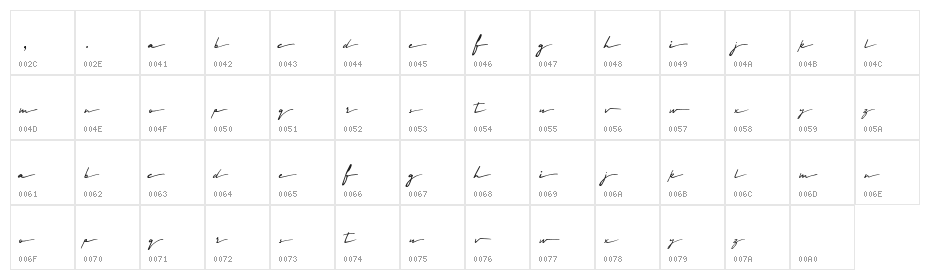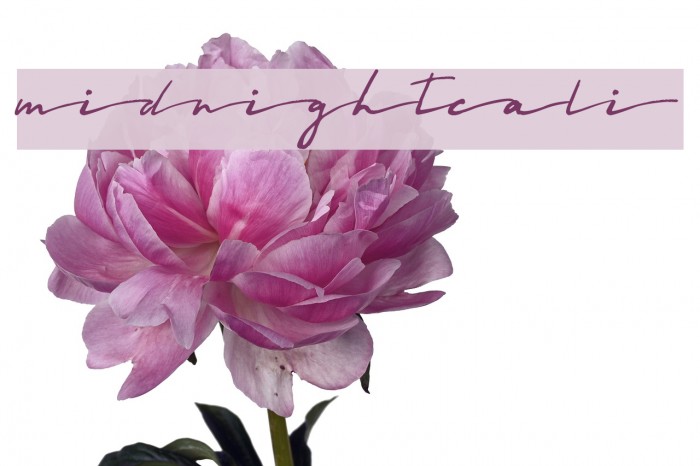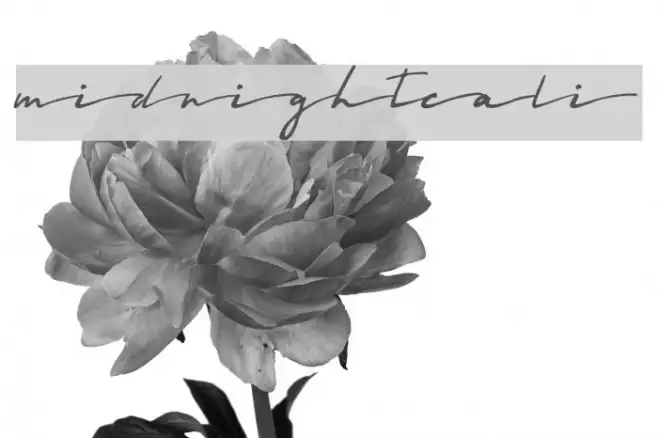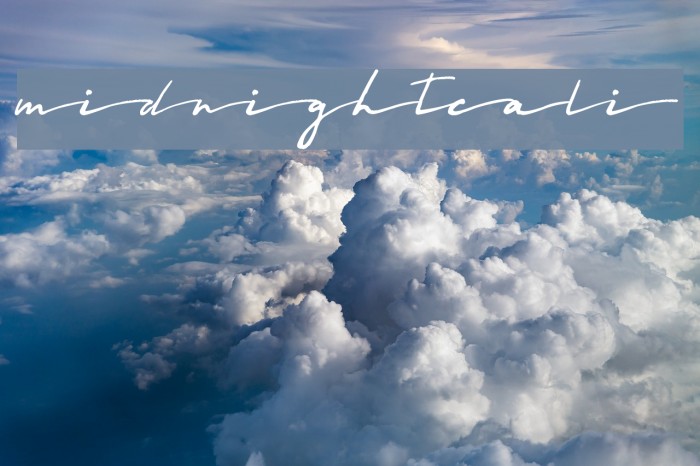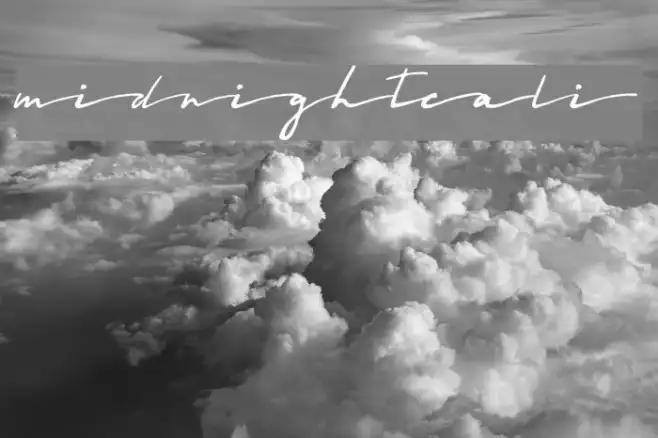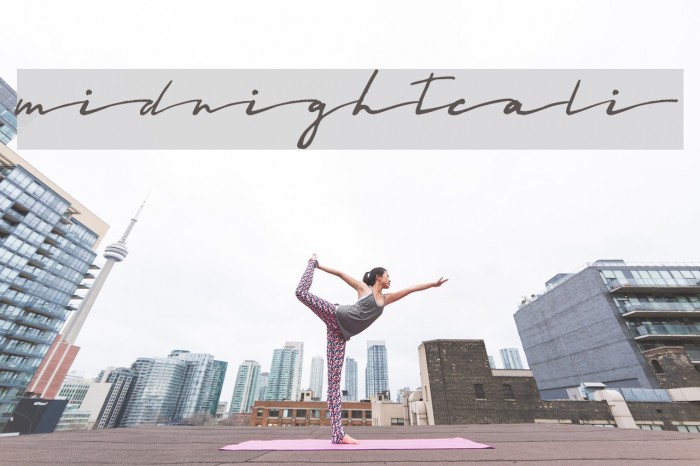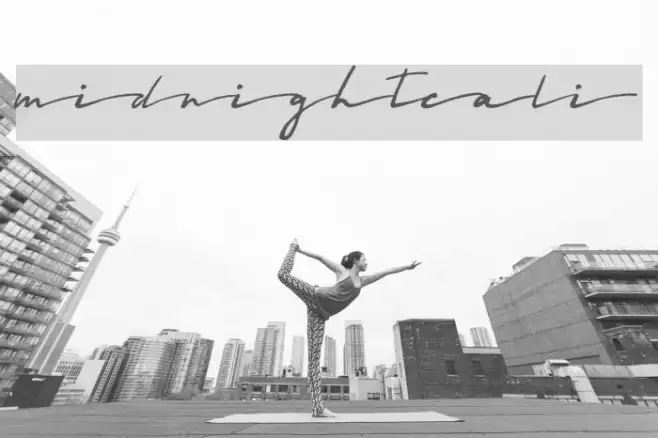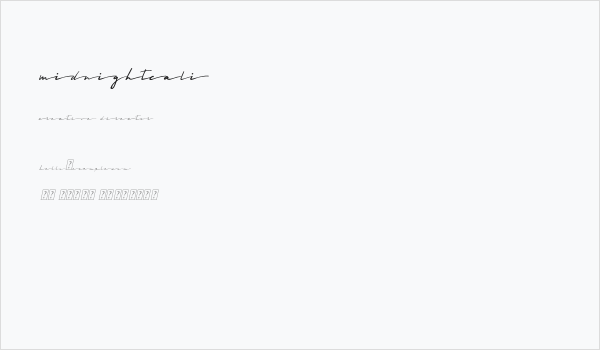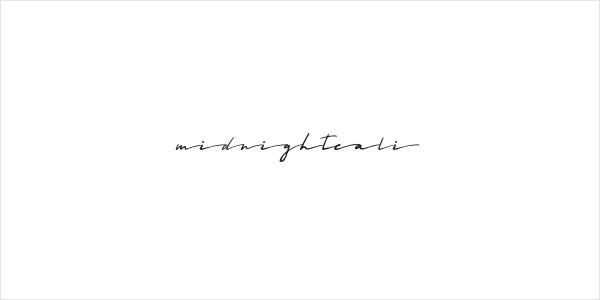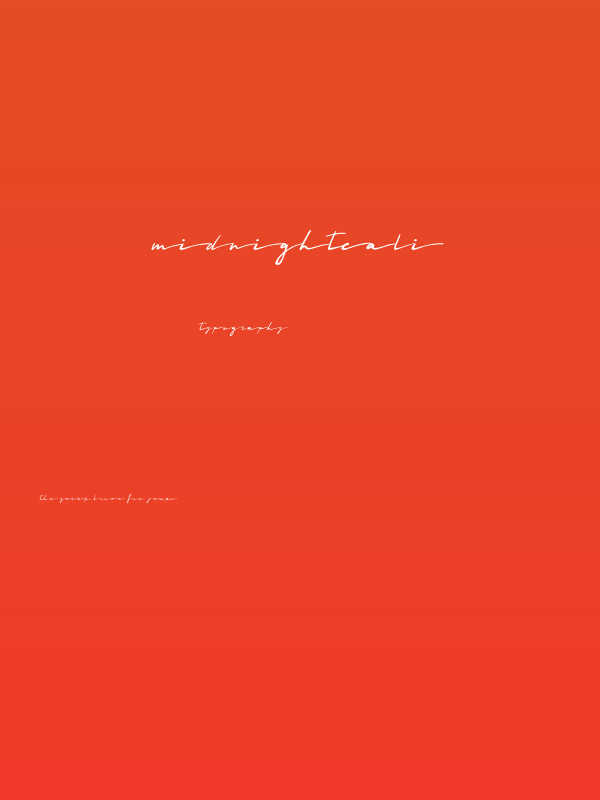
Midnightcali Font
Midnightcali Description
This font features a flowing, cursive style with elegant, elongated letterforms. The strokes are smooth and connected, giving it a handwritten appearance that is both sophisticated and approachable. The lowercase letters have a consistent slant, enhancing the fluidity of the text. The font maintains a delicate balance between thin and slightly thicker strokes, providing a subtle contrast that adds to its charm. Its overall design is reminiscent of classic calligraphy, making it suitable for projects that require a personal touch.
| Proposed Projects | Ideal for wedding invitations, personal branding, greeting cards, and elegant packaging designs. |